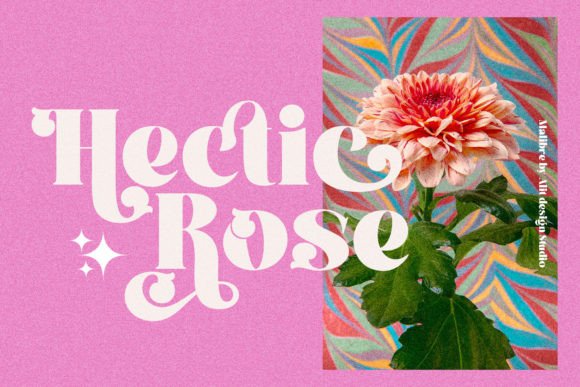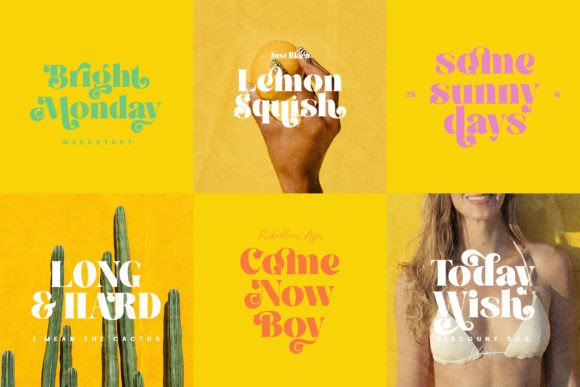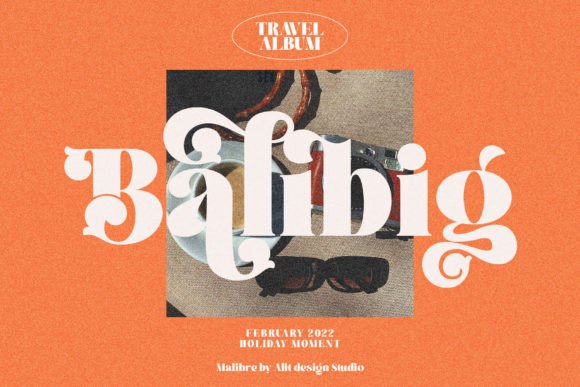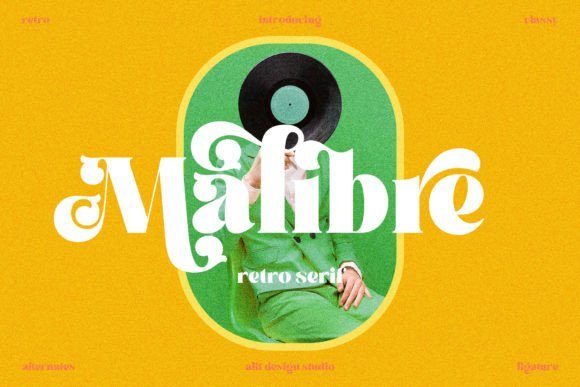
Malibre is a gorgeous and luxurious display font, crafted to give your headlines and logotype projects a stylish touch.
This font reads as strong, confident, and dynamic and can add tons of nostalgic character to your designs This font is PUA encoded which means you can access all the glyphs and ligatures with ease.